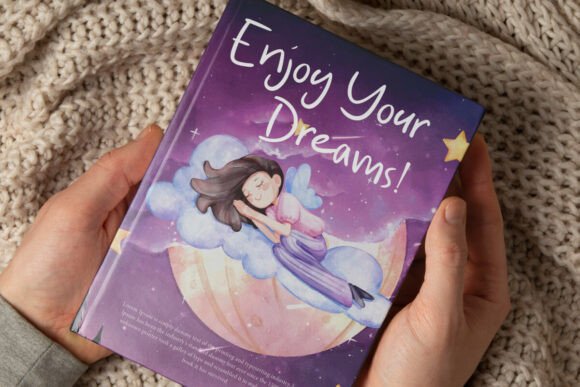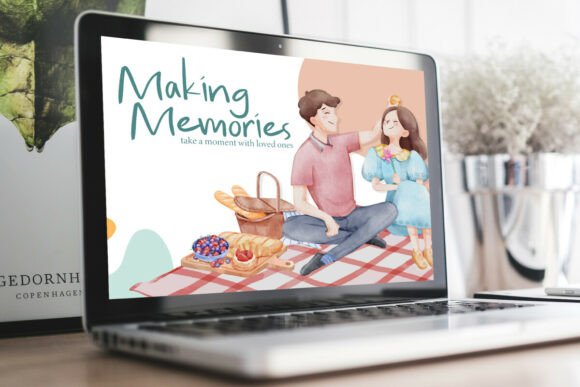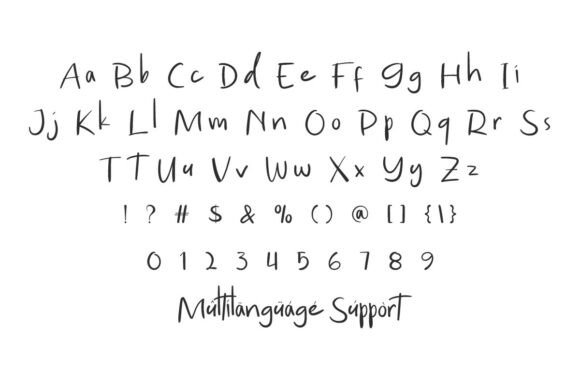
Introduction to Mengejar Mimpi Font
Mengejar Mimpi is a charming, organic handwritten font that captures the warmth of a personal touch.
This Mengejar Mimpi font features fluid, natural strokes that mimic real penmanship, making it ideal for projects that require an approachable and friendly vibe The relaxed rhythm of the Mengejar Mimpi typeface is perfect for storytelling, lifestyle branding, and heartfelt messages.